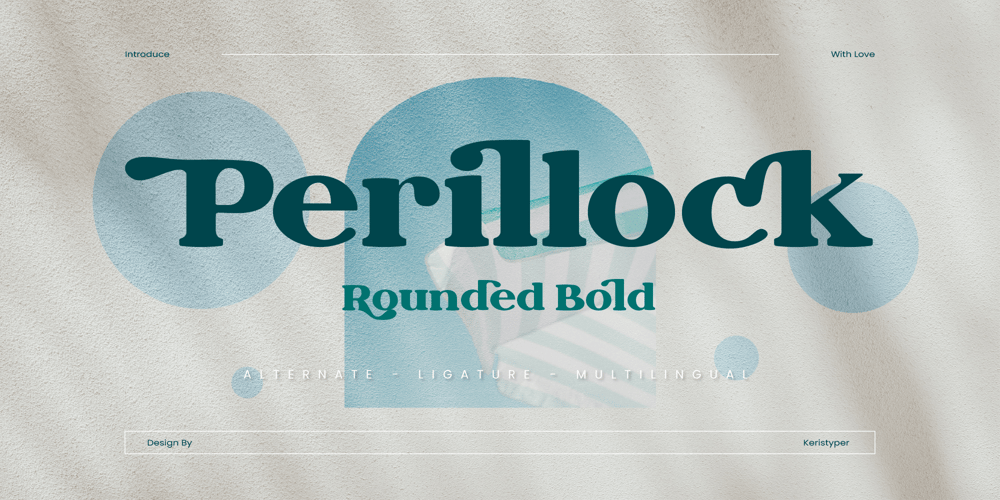
Perillock Font Family was designed by Tezar Tantular and published by Keristyper Studio. Perillock contains 1 styles and family package options. Perillock font is a clean and modern typeface with a rounded bold design. This font is perfect for headlines, titles, logos, and other design projects that require a bold and attention-grabbing look. Its smooth and consistent curves give it a friendly and approachable feel, making it suitable for a wide range of design applications. Whether you’re creating a poster, packaging design, or website, Perillock is sure to make your text stand out.Featured: Standard, Uppercase & Lowercase Numeral & Punctuation Multilingual : ä ö ü Ä Ö Ü ß ¿ ¡ Alternate & Ligature PUA encoded We recommend programs that support the OpenType feature and the Glyphs panel such as Adobe applications or Corel Draw, so you can use all the variations of the glyphs.Hope you enjoy our fonts!